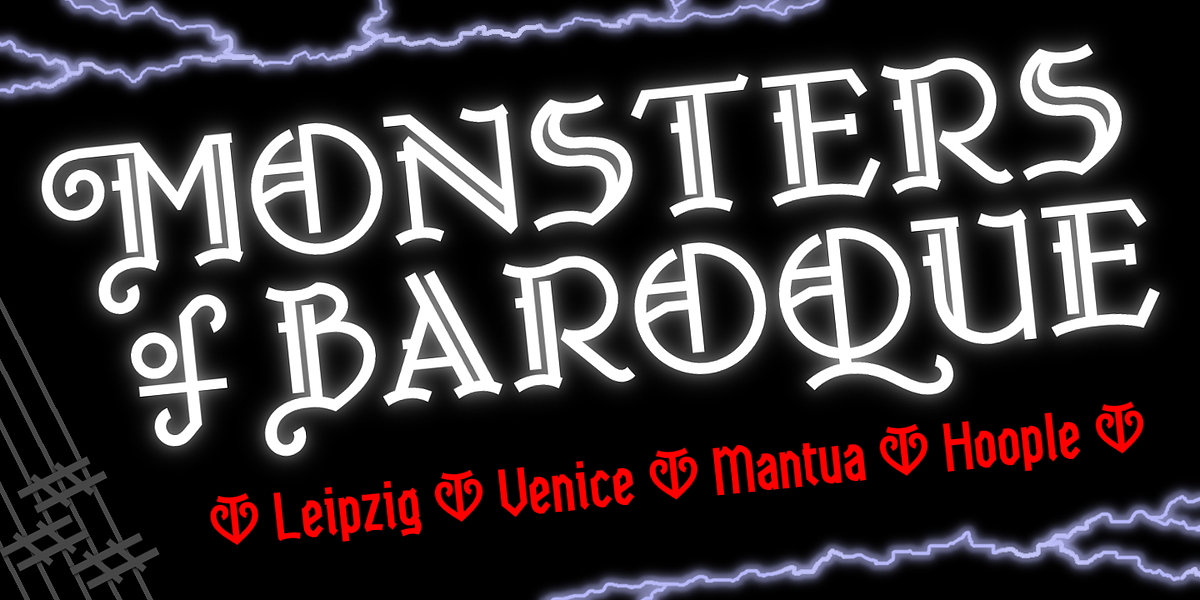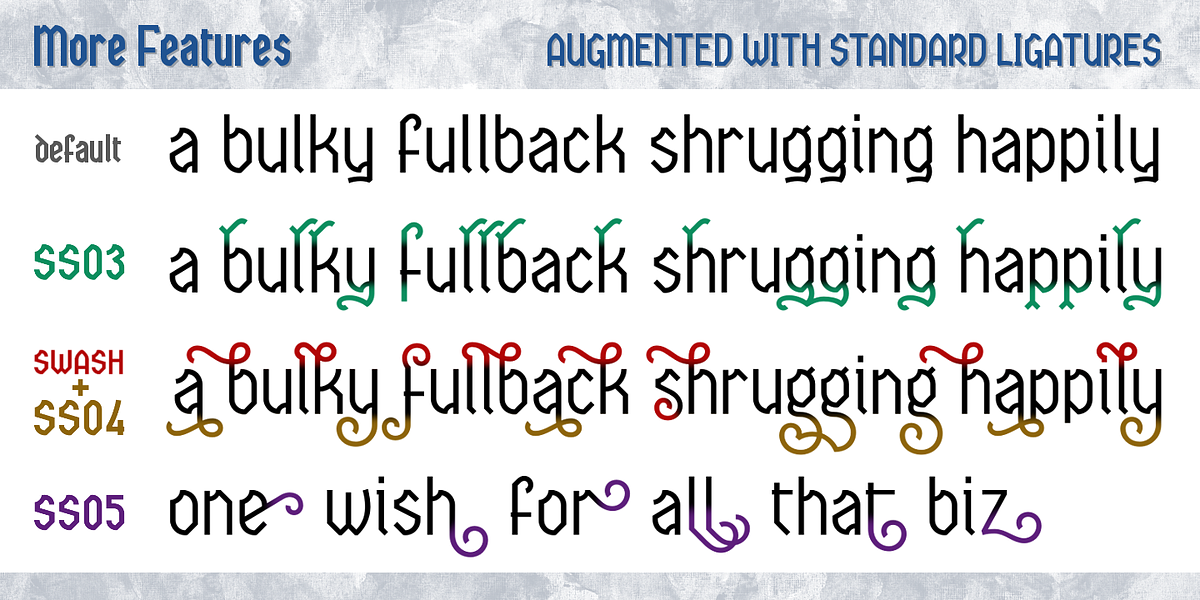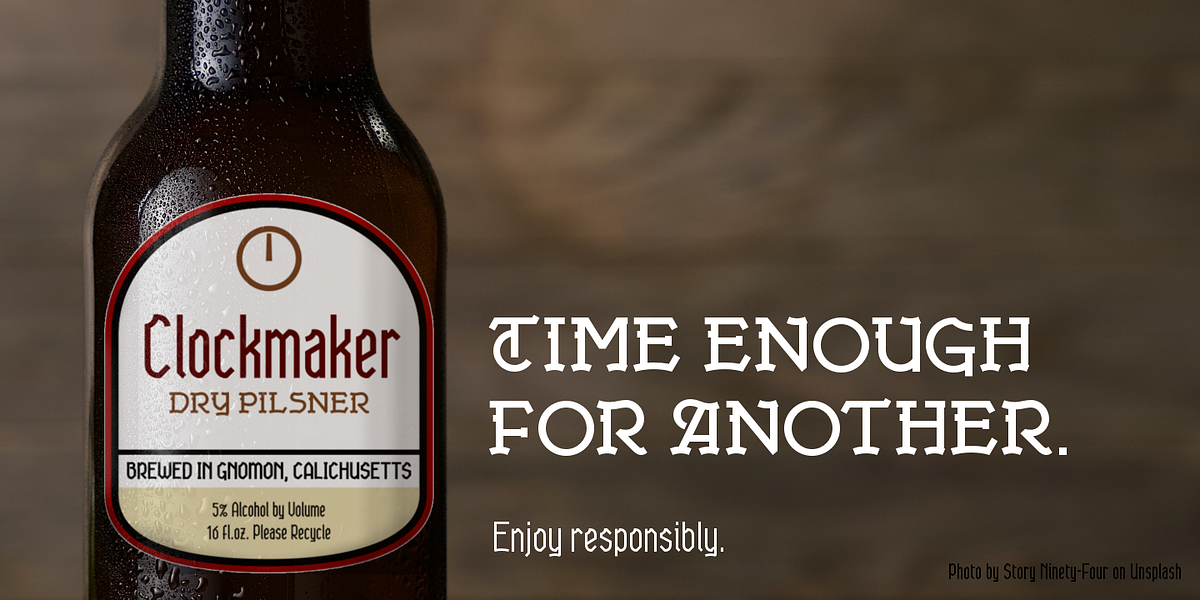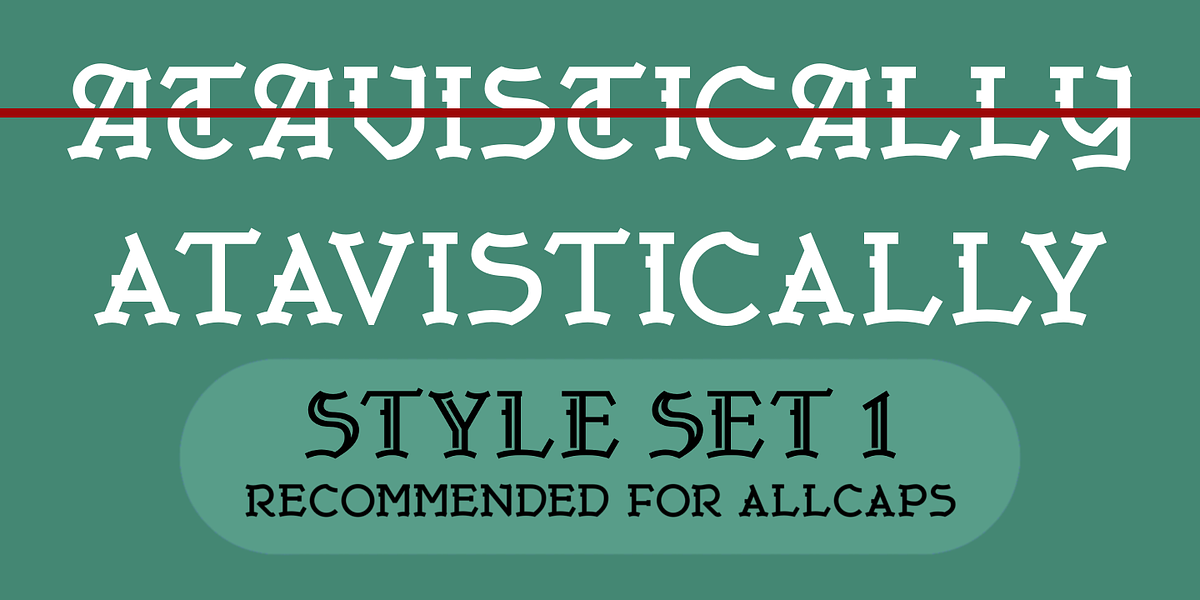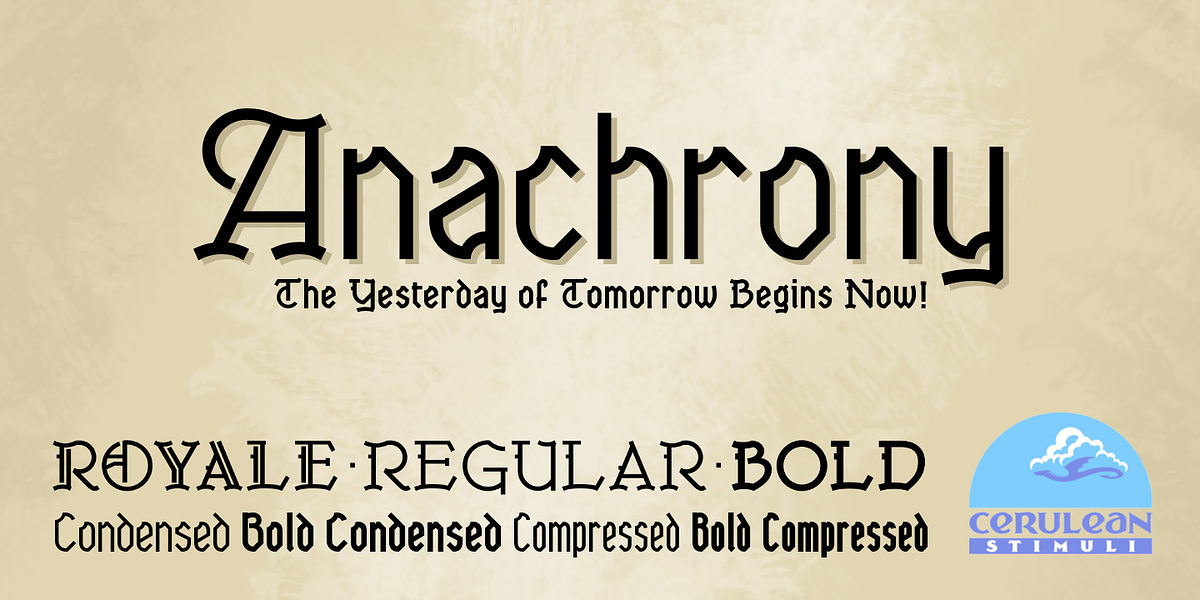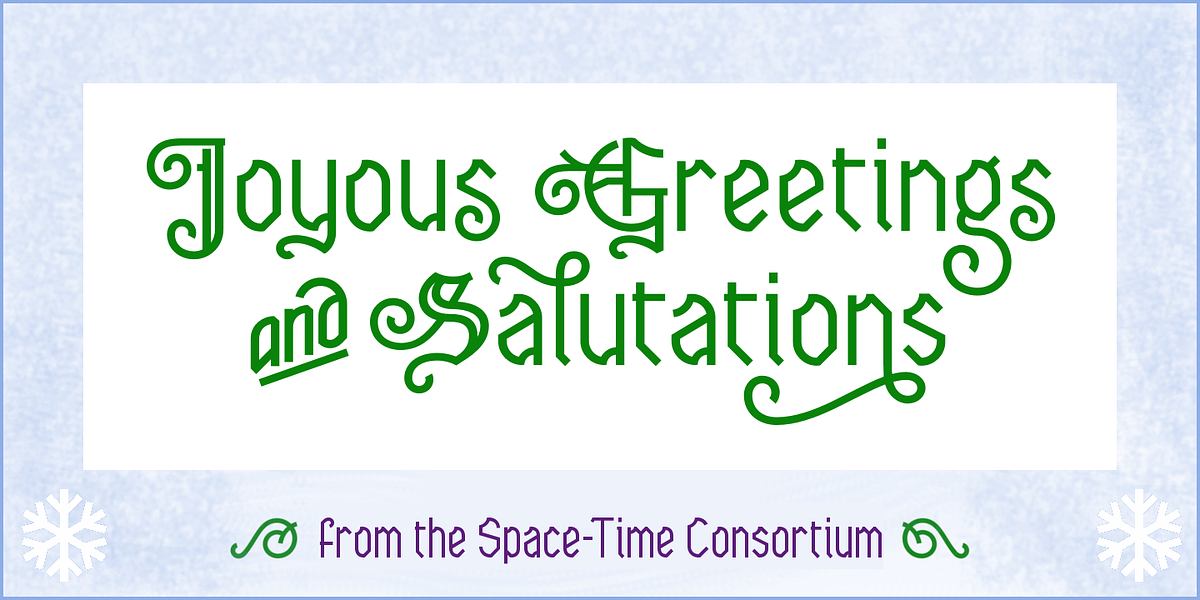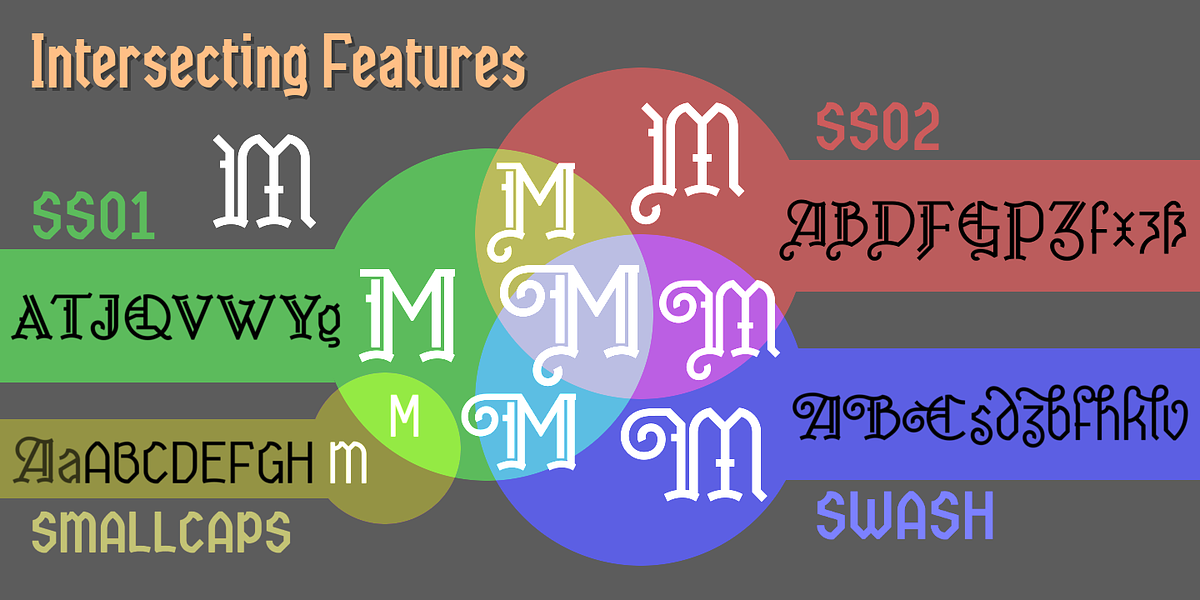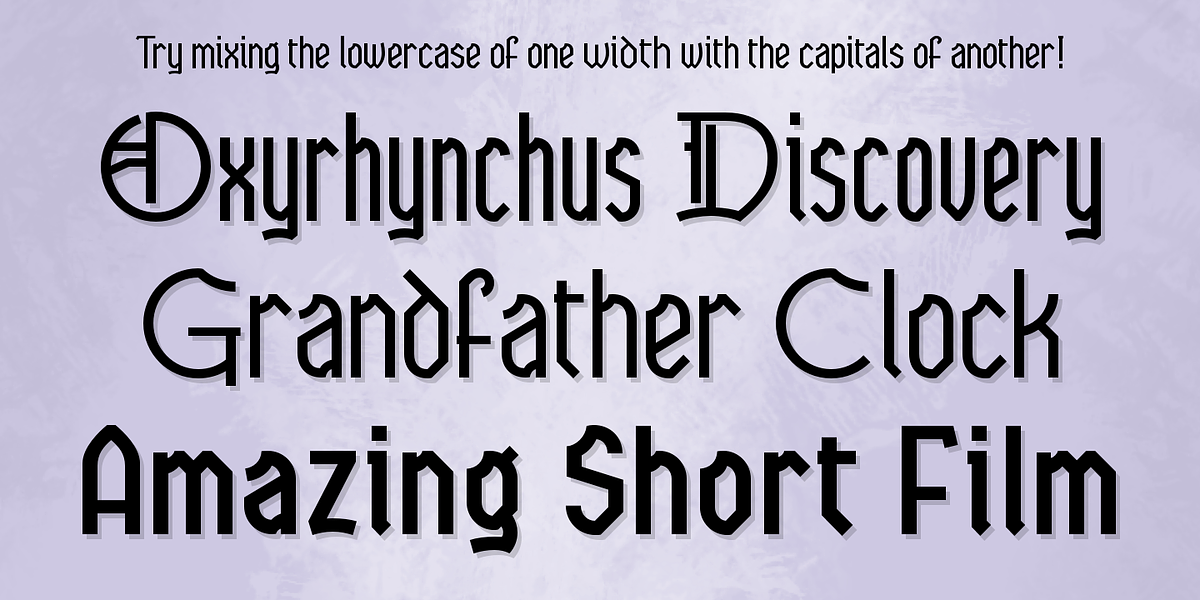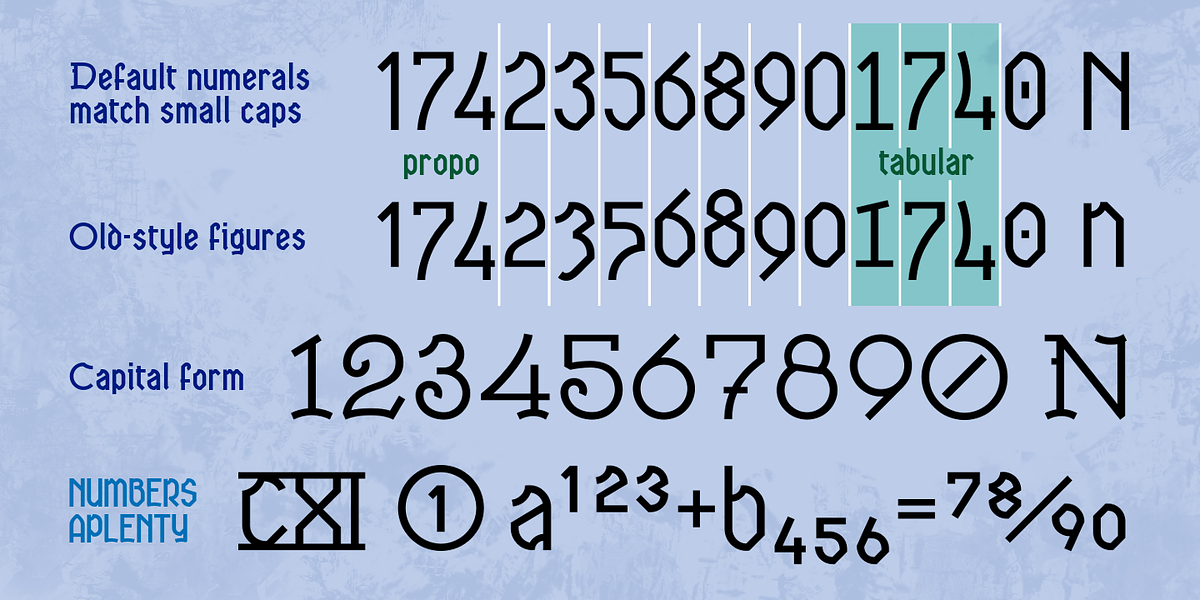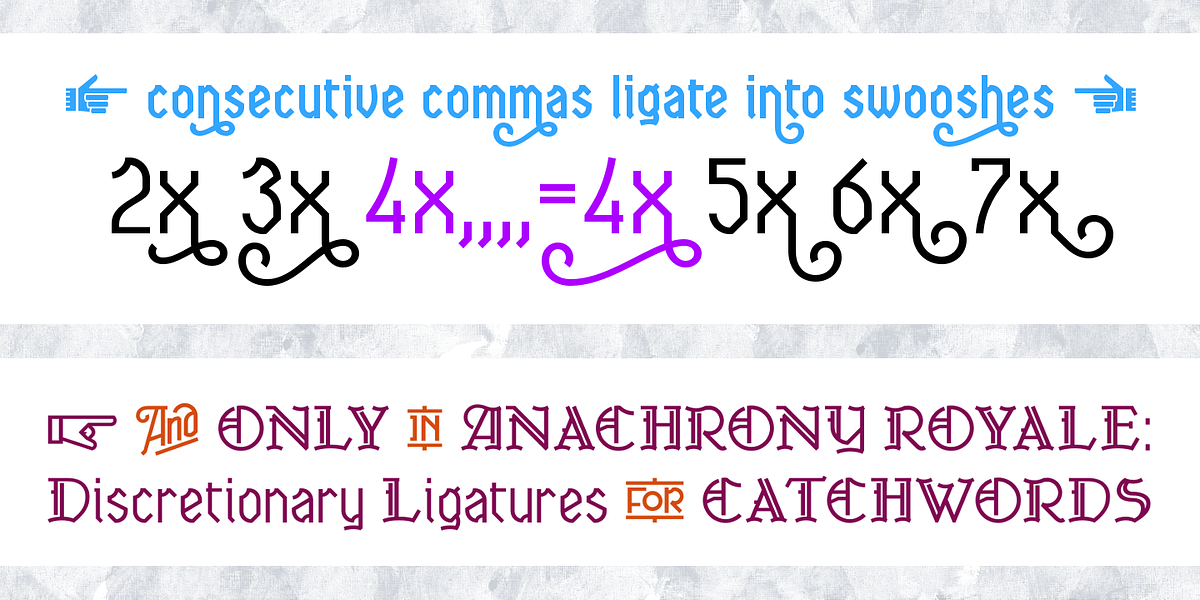
Anachrony
Anachrony is a unique blackletter typeface that blends the angular forms of Old English with a modern geometric sensibility. Its design evokes Art Deco aesthetics and incorporates elements reminiscent of wrought ironwork. The font features extensive OpenType support, including stylistic alternates, swashes, ligatures, and even Roman numeral conversion. This versatility makes Anachrony suitable for a wide range of display applications, from headlines to branding.